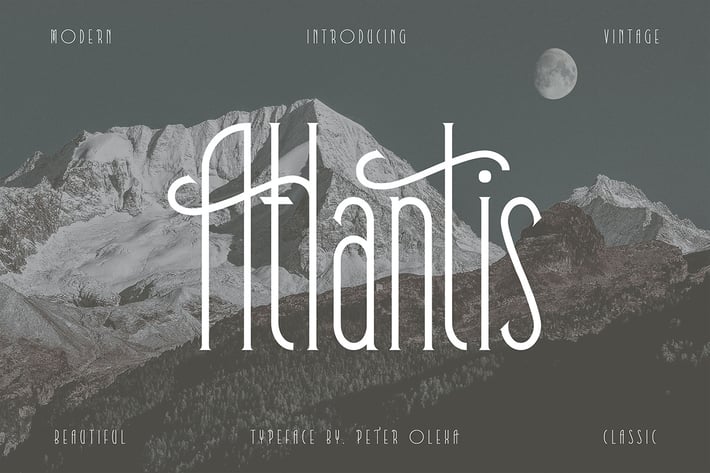
Atlantis Serif Condensed Font
Unique vintage & condensed style custom serif font. Comes with multilingual support - great for your new logo or branding project.
- Multilingual support
- Great for retro or vintage style branding projects